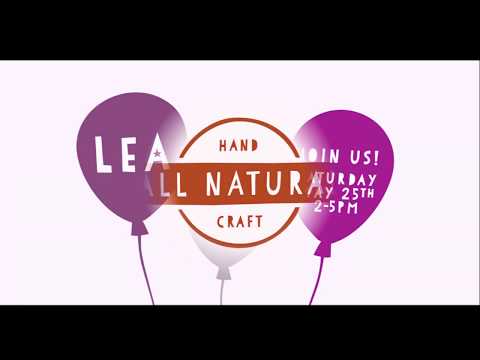
PaperCute is a handmade scripted font designed by Julien Saurin and published by S&C Type, a Paris based foundry. Released in 2012 and updated in 2018 with new features, PaperCute comes in four styles (Regular, Bold, Black, Ornaments) with an original designed hand-drawn typography inspired by paper cutting. You can’t find any cutter font than Papercute!
PaperCute font details
Designer: Julien Saurin
Foundry: S&C Type
Styles: Regular, Bold, Black, Ornaments
Features: Small Caps, Extended Language, Ornaments, Open Type
Released: published in 2012, updated in 2018